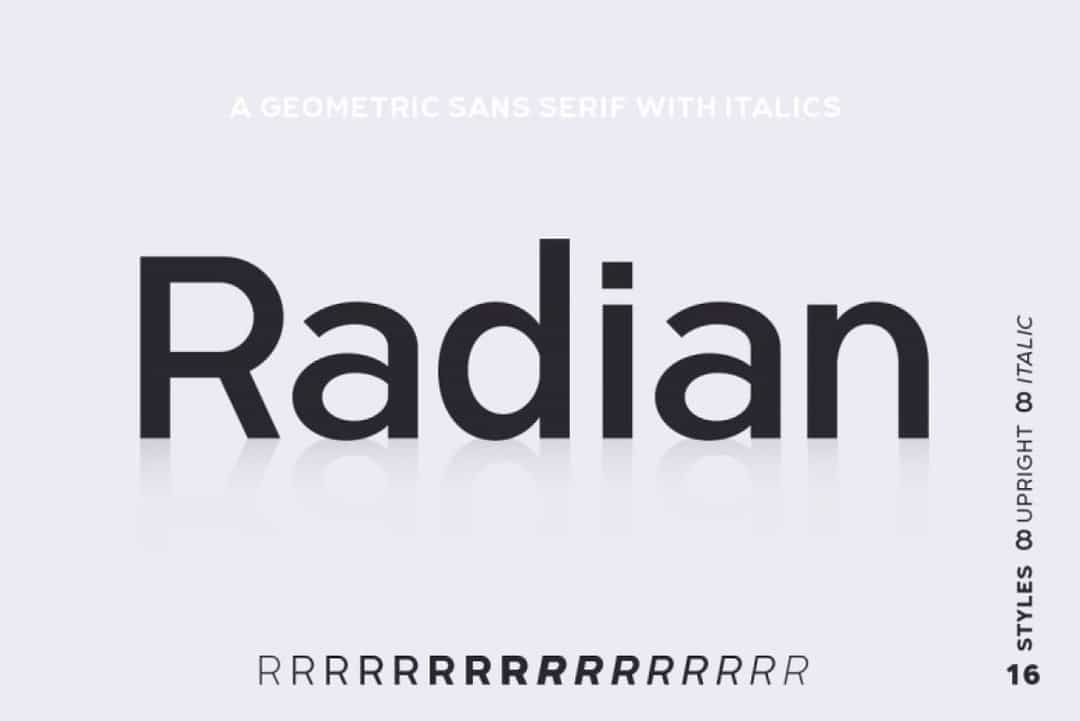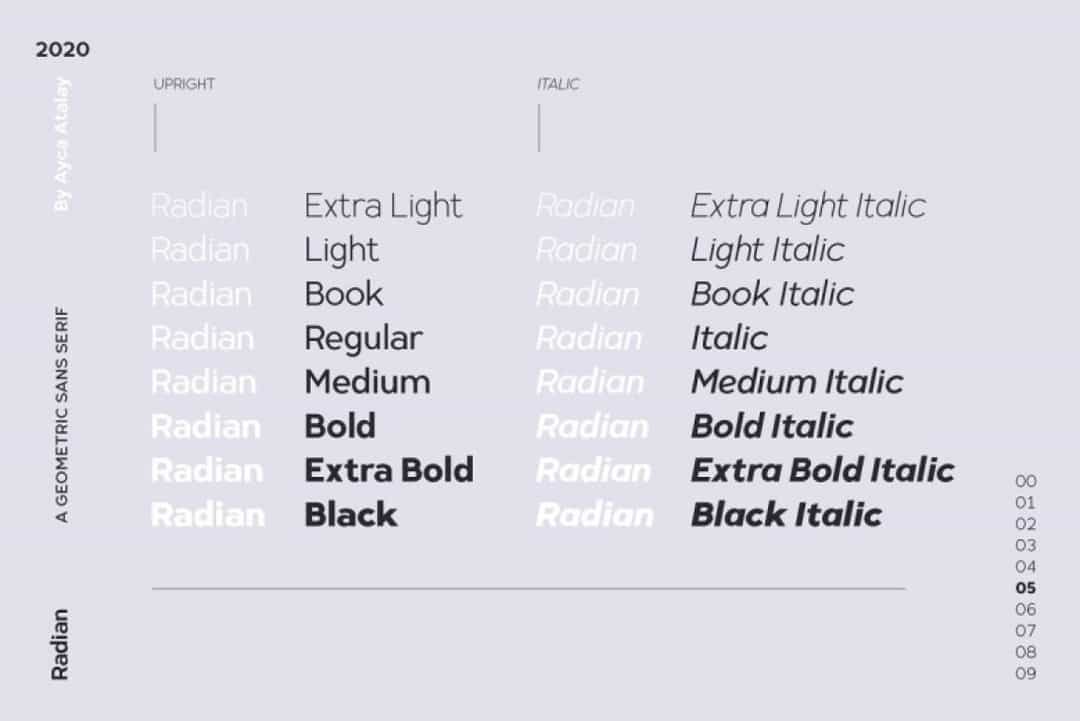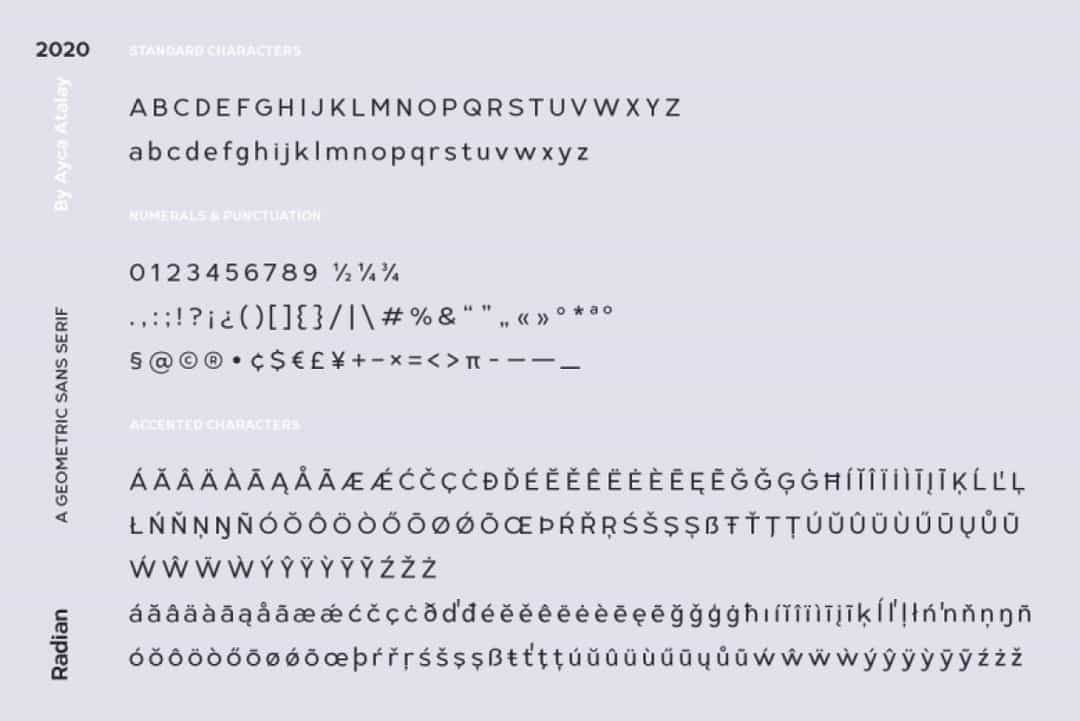
Radian is a geometric sans-serif font family comprised of 16 weights and eight upright fonts with their matching italic versions. Perfect for any design or graphic project, Radian makes an eye-catching display typeface in smaller sizes as well.